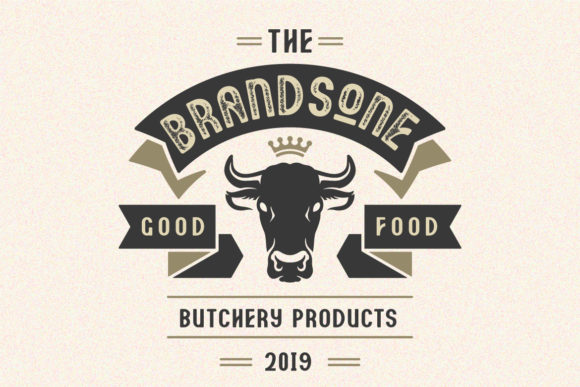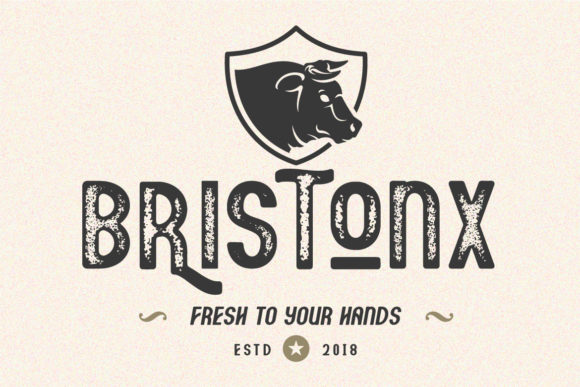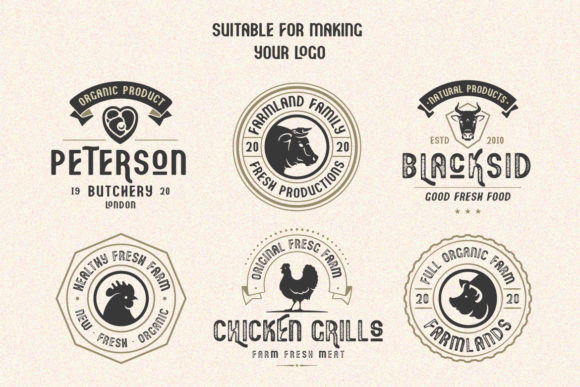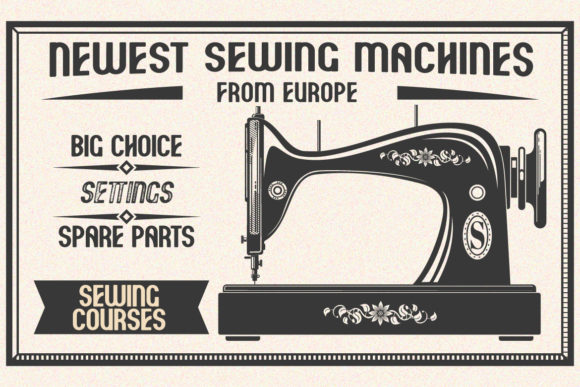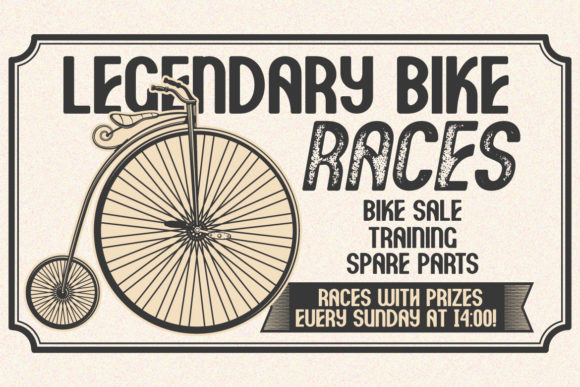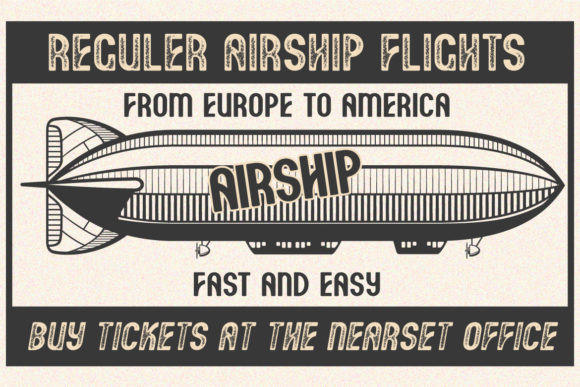
Introduction to Motgan Font
Motgan is a bold and authentic display font.
Add this font to your creative ideas and notice how it will make them stand out .
Motgan Font offers exceptional quality and versatility, making it a valuable addition to your design toolkit. Whether you’re creating for personal projects or commercial use, Motgan Font delivers professional results.